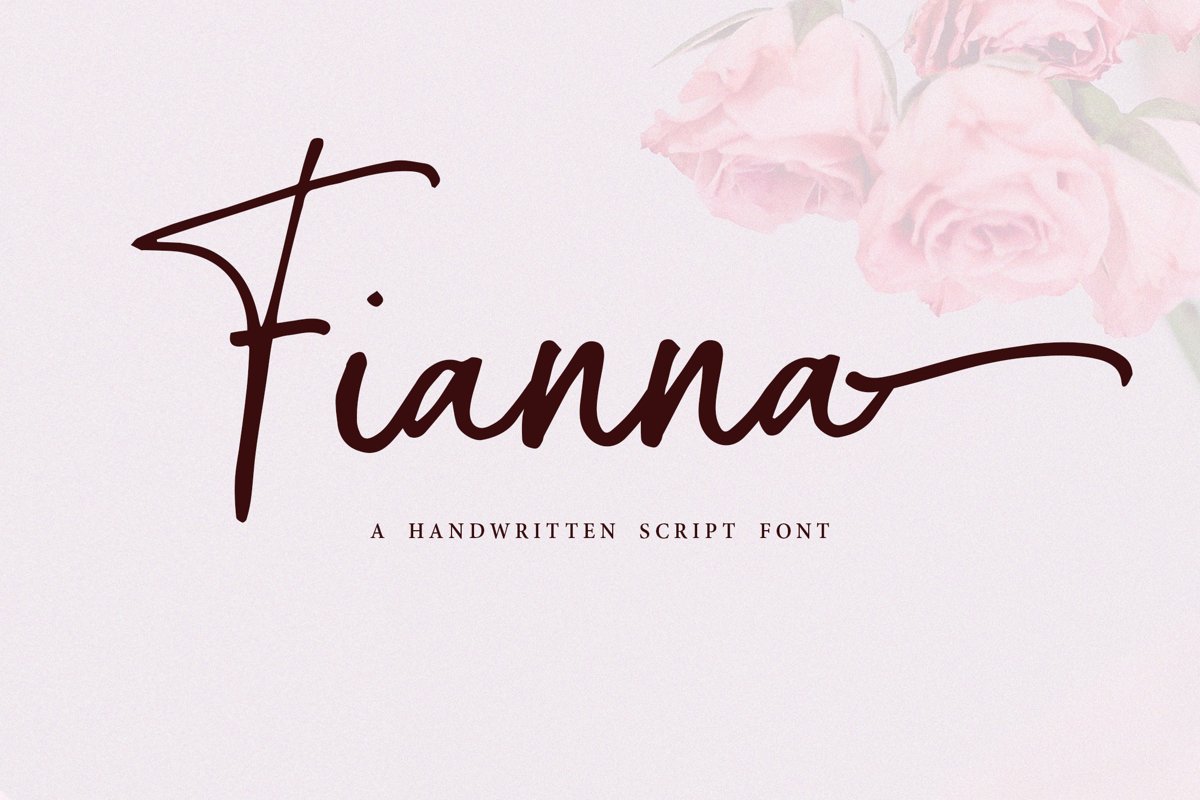
Fianna | Handwritten Script Font
Fianna-Regular
Introducing, new fonts from us. Fianna Signature font. font with hand scratches, so this font looks natural. This font is suitable for use in design business cards, calendars, wedding invitations and others..